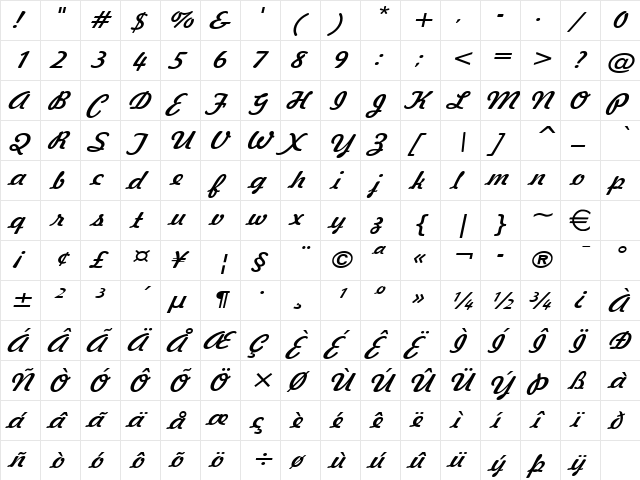
Jott43Wide Italic
Design Context for Jott43Wide Typeface
Jott43Wide is a composed and adaptable typeface that performs quietly and consistently across a wide range of design contexts. The slanted form adds forward momentum and visual energy.
Pro Tip: Try Jott43Wide for annotation and caption copy alongside an upright companion — the contrast in angle creates a dynamic but ordered typographic system.